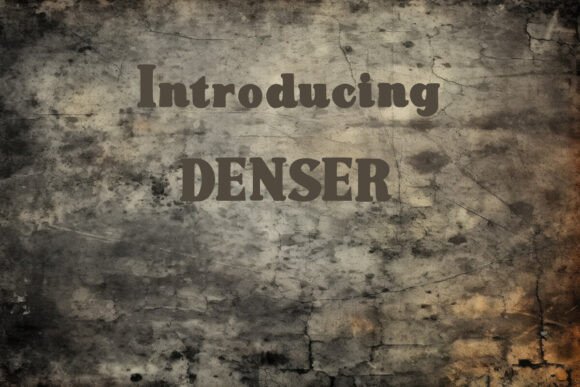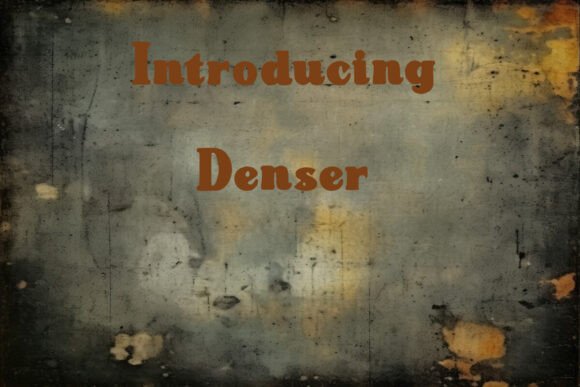
Unveiling the Elegance of Denser Font: Elevate Your Designs with Versatility
In the realm of typography, the right font can transform your design from ordinary to extraordinary. For designers and crafters seeking a typeface that exudes elegance and versatility, look no further than Denser Font. This captivating font is perfect for a myriad of applications, from embellishing shirts and adorning stickers to enhancing brand identities, gracing glossy magazines, and vibrant greeting cards. Whether you’re working on bespoke Cricut projects, eye-catching posters, or promoting dynamic engagement on social media, Denser Font is sure to leave a lasting impression.
The Charm of Denser Font
Denser Font boasts a unique charm that sets it apart from other typefaces. Its elegant design makes it an ideal choice for projects that demand a touch of sophistication. The font’s versatility is one of its most compelling features, allowing it to seamlessly integrate into various design contexts. Whether you’re aiming for a modern, trendy look or a more classic, timeless feel, Denser Font adapts effortlessly to meet your creative needs.
Exploring the Applications of Denser Font
The possibilities with Denser Font are endless. Here are some of the many ways you can leverage this exceptional typeface:
- Embellishing Shirts: Add a touch of elegance to your apparel designs with Denser Font. Its stylish and contemporary look makes it perfect for fashion brands, personal fashion statements, or as a unique gift.
- Adorning Stickers: Create eye-catching stickers that stand out with Denser Font. Its clear and readable design ensures your message gets across effectively, making it ideal for marketing, events, or personal use.
- Enhancing Brand Identities: Establish a strong brand presence with Denser Font. Its professional and sleek appearance makes it suitable for logos, business cards, and other brand materials.
- Gracing Glossy Magazines: Elevate your magazine designs with the sophistication and poise of Denser Font. Its elegant style is sure to captivate readers and enhance the overall aesthetic of your publication.
- Vibrant Greeting Cards: Create heartfelt and visually stunning greeting cards for any occasion. Denser Font’s charm and character add a personal touch that makes your cards truly special.
- Bespoke Cricut Projects: Take your Cricut projects to the next level with Denser Font. Its compatibility with cutting machines makes it easy to craft custom vinyl decals, iron-on designs, and more.
- Eye-Catching Posters: Design posters that grab attention and leave a lasting impression. Denser Font’s bold and elegant style ensures your message stands out, whether it’s for an event, promotion, or awareness campaign.
- Dynamic Engagement on Social Media: Boost your social media presence with Denser Font. Use it to create engaging graphics, quotes, and announcements that resonate with your audience and foster meaningful connections.
Denser Font is a game-changer for designers and crafters seeking a versatile and elegant typeface. Its wide range of applications, from shirts and stickers to brand identities and social media graphics, makes it an invaluable asset in your design toolkit. By leveraging the charm and versatility of Denser Font, you can elevate your designs and create memorable experiences for your audience. So why wait? Explore the elegance of Denser Font today and let its charm resonate more in your design escapades!
Discover the power of Denser Font and unlock a world of creative possibilities. Whether you’re a seasoned designer or a crafty enthusiast, this exceptional typeface is sure to inspire and enhance your projects. Experience the difference Denser Font can make and take your designs to new heights!